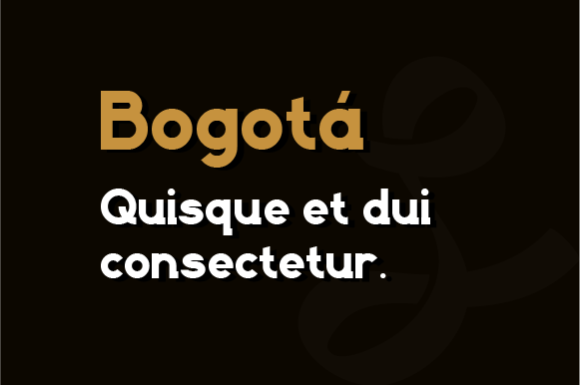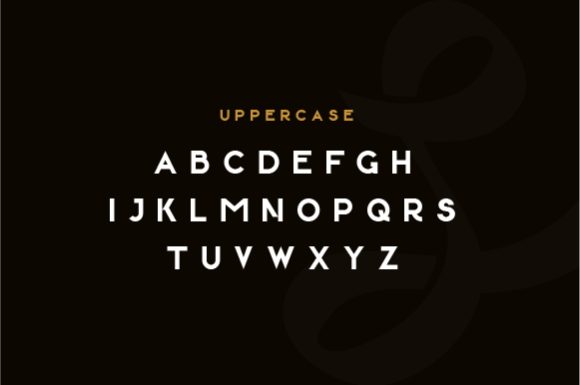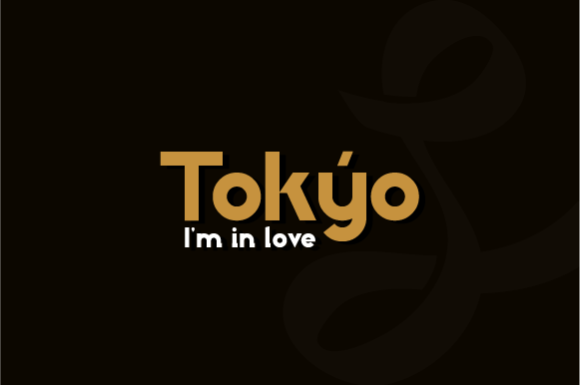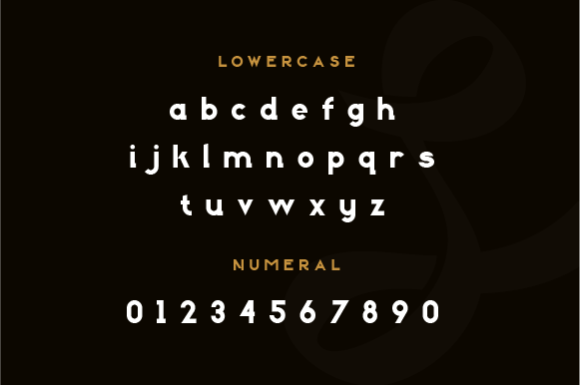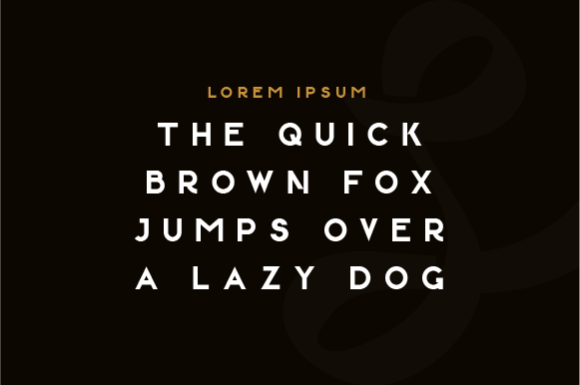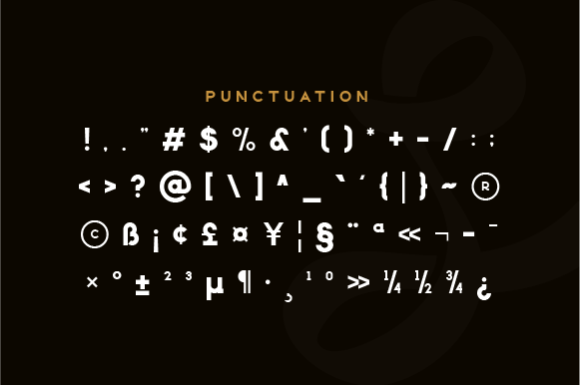
Bogor Font: Elevate Your DIY Projects with a Strong and Clean Display Font
Are you a designer, crafter, or DIY enthusiast looking for a unique and gorgeous font to bring your projects to life? Look no further than the Bogor Font! This strong and clean display font is perfect for anyone who wants to add a touch of elegance and sophistication to their handmade creations.
What is Bogor Font?
Bogor Font is a modern and stylish display font that is designed to make a statement. Its clean lines, bold strokes, and unique character make it perfect for a wide range of DIY projects, from crafting and scrapbooking to signage and branding. Whether you’re a professional designer or a crafty hobbyist, Bogor Font is sure to become a favorite in your font collection.
Key Features of Bogor Font
- Strong and Clean Design: Bogor Font features a strong and clean design that is perfect for making a bold statement.
- Unique Character: The font’s unique character and style make it stand out from more traditional fonts.
- Highly Versatile: Bogor Font can be used for a wide range of DIY projects, from crafting and scrapbooking to signage and branding.
- Easily Readable: Despite its bold design, Bogor Font is easy to read, making it perfect for both digital and print projects.
How to Use Bogor Font in Your DIY Projects
Bogor Font is incredibly versatile and can be used in a wide range of DIY projects. Here are a few ideas to get you started:
- Scrapbooking: Use Bogor Font to add a bold and stylish touch to your scrapbook pages.
- Crafting: From knitting and crochet to paper crafting and woodworking, Bogor Font is perfect for adding a personal touch to your handmade creations.
- Signage: Use Bogor Font to create eye-catching signs for your business, event, or DIY project.
- Branding: Bogor Font is perfect for creating unique and memorable branding for your business or product.
Why Choose Bogor Font?
With so many fonts to choose from, why should you choose Bogor Font for your DIY projects? Here are a few reasons:
- Unique Style: Bogor Font features a unique and stylish design that will set your projects apart from the rest.
- High-Quality Design: The font is designed with high-quality and precision, ensuring that it looks great in any project.
Tips for Using Bogor Font Effectively
Here are a few tips for using Bogor Font effectively in your DIY projects:
- Use it Sparingly: Bogor Font is bold and eye-catching, so use it sparingly to avoid overwhelming your project.
- Pair it with Other Fonts: Bogor Font pairs well with other fonts, so don’t be afraid to experiment with different combinations.
- Experiment with Colors: Bogor Font looks great in a variety of colors, so experiment with different colors to find the one that works best for your project.
Bogor Font is a strong and clean display font that is perfect for designers, crafters, and DIY enthusiasts who want to add a touch of elegance and sophistication to their projects. With its unique character, highly versatile design, and ease of use, Bogor Font is sure to become a favorite in your font collection. So why wait? Download Bogor Font today and start bringing your DIY projects to life!